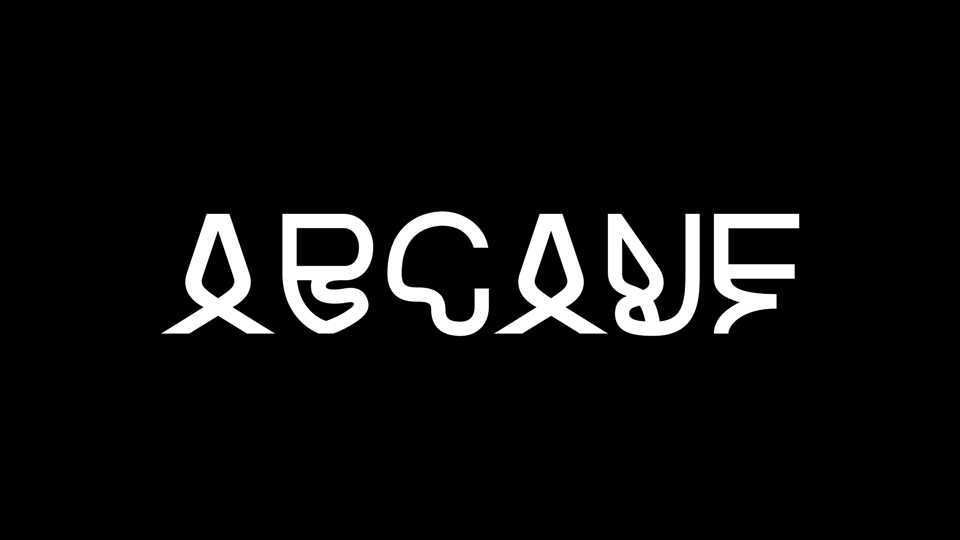
Download Arcane font, an experimental display typeface with unique letterforms. Arcane font is best for posters, album artwork and typographic compositions.
Designer: Mickaël Emile